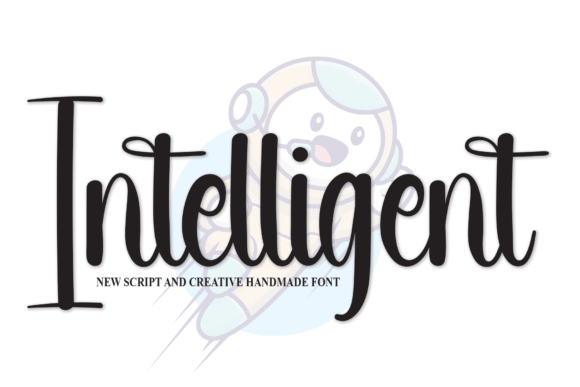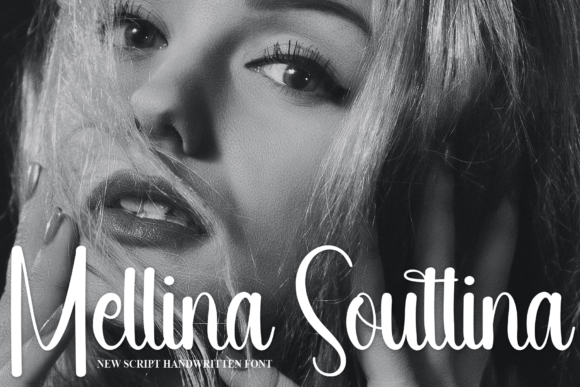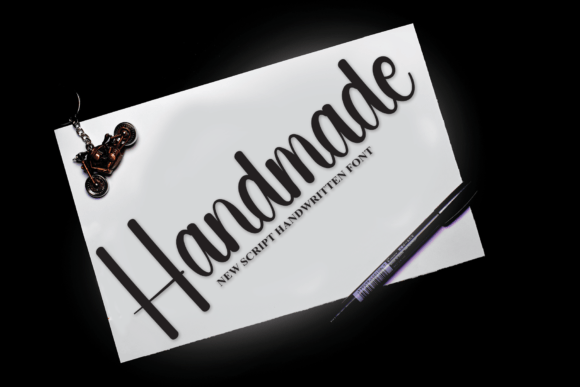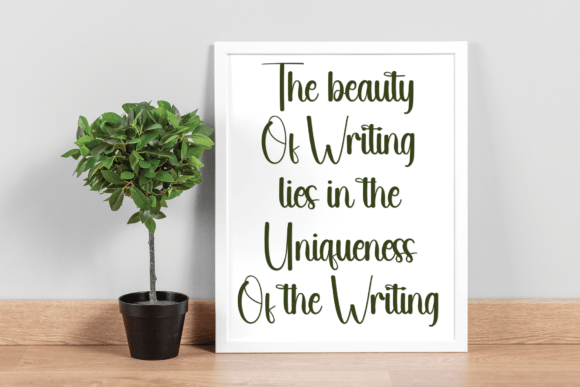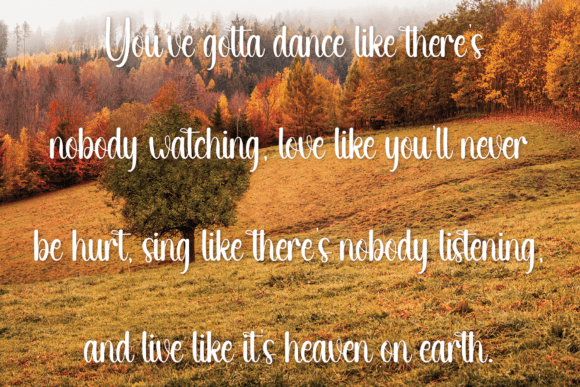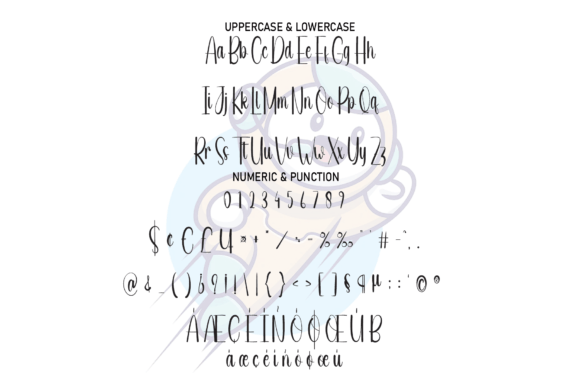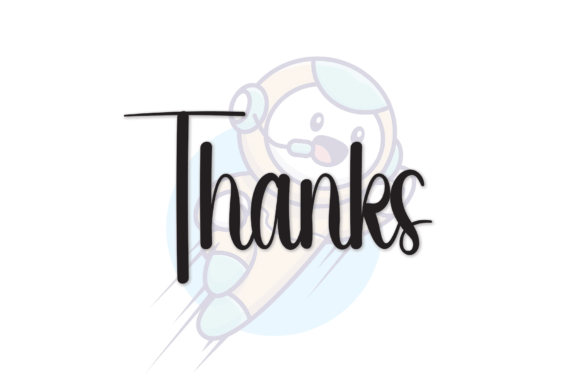
Intelligent Font
A Relaxed and Modern Handwritten Typeface
Intelligent is a versatile handwritten font that brings a fresh, relaxed style to any project. With clean lines and smooth curves, it creates a natural look that feels approachable and modern.
Whether you’re designing personal projects or professional materials, Intelligent helps you craft work that feels polished and inviting.
Perfect for Greeting Cards and Invitations
Intelligent is an excellent choice for greeting cards and invitations. Its calm, handwritten letters make your words feel personal and genuine.
Use it for wedding invitations, birthday cards, thank-you notes, or holiday greetings. The font’s natural style keeps your message clear while adding a warm, human touch.
Pair Intelligent with muted colors and delicate illustrations to create a clean, modern design that feels thoughtful and elegant.
Great for Headlines and Digital Content
This font also shines in headlines and online graphics. Intelligent’s flowing style helps your titles stand out while feeling casual and friendly.
Try it in blog post headers, social media graphics, or website banners. Even at smaller sizes, the letters remain legible and crisp.
Adding Intelligent to your digital designs helps you build a consistent look that feels both modern and relaxed.
Perfect for Branding and Packaging
If you want your brand to feel authentic and contemporary, Intelligent is a great fit. It looks beautiful in logos, packaging, and labels.
The font’s clean, understated style adds character without being too formal. Use it alone for a minimalist look or combine it with a serif or sans-serif font for extra contrast.
Intelligent is especially suited for brands that value creativity, simplicity, and a calm aesthetic.
Versatile and Easy to Use
Intelligent includes uppercase and lowercase letters, numbers, punctuation, and ligatures, giving you everything you need to create polished designs.
It maintains its beauty and clarity at any size, whether you’re designing large posters or small labels.
Leave plenty of space around your text to let Intelligent’s relaxed style shine.
Tips for a Clean and Elegant Look
To get the best results, pair Intelligent with neutral or soft color palettes like blush pink, warm beige, or pale gray.
Keep supporting graphics simple—minimal icons and clean lines complement the font without taking attention away from your message.
Intelligent is at its best when you let its handwritten charm be the focal point of your design.
A Must-Have Font for Your Collection
Intelligent isn’t just another handwritten font—it’s an essential tool for creating work that feels relaxed, authentic, and timeless.
Whether you’re designing greeting cards, social media graphics, packaging, or branding, Intelligent helps you achieve a clean, polished look with ease.
Adding Intelligent to your font collection ensures you’ll always have a go-to typeface for projects that need natural elegance and effortless style.